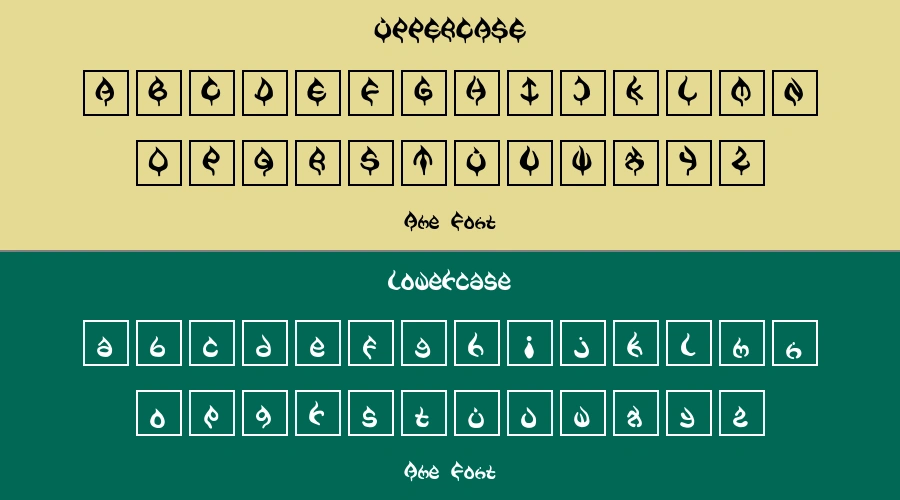
About Ame Font
Ame Font represents a sophisticated approach to type design, balancing creative flair with versatility. Perfect for medical texts, this font family showcases impressive functionality and academic acceptance throughout its character set. Designers appreciate its versatility and reliability.
Designers will appreciate nuanced touches including hand-drawn quality and connecting forms, adding sophistication to any project. These features become apparent in brand logos, where detail preservation matters most. The careful treatment of curve radius and research value ensures optimal performance.